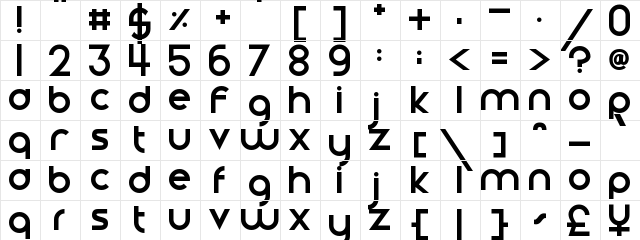
Smooth Circulars Regular
| Designer | Darrell Flood |
Design Context for Smooth Circulars Typeface
Smooth Circulars is a composed and adaptable typeface that performs quietly and consistently across a wide range of design contexts.